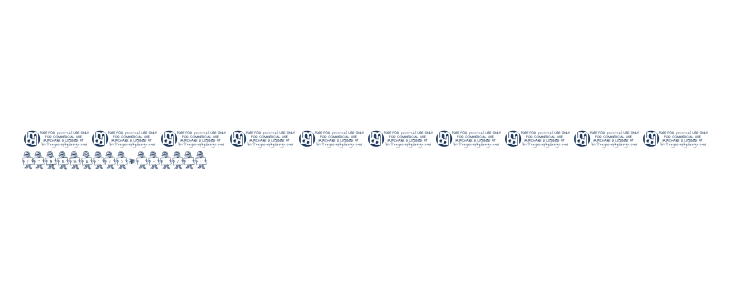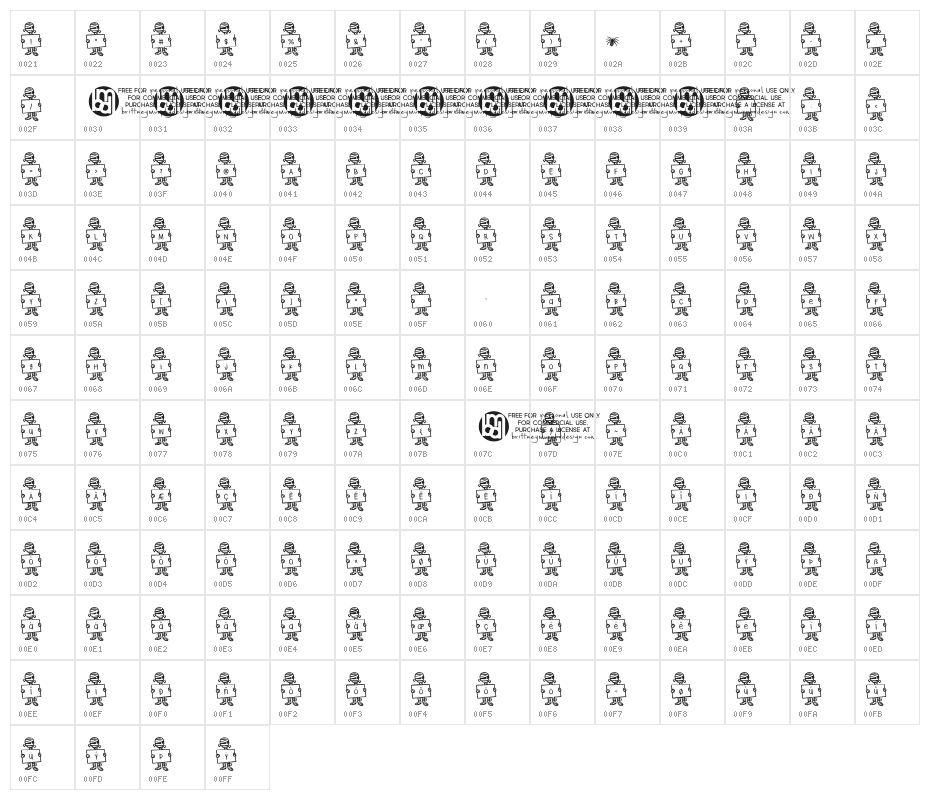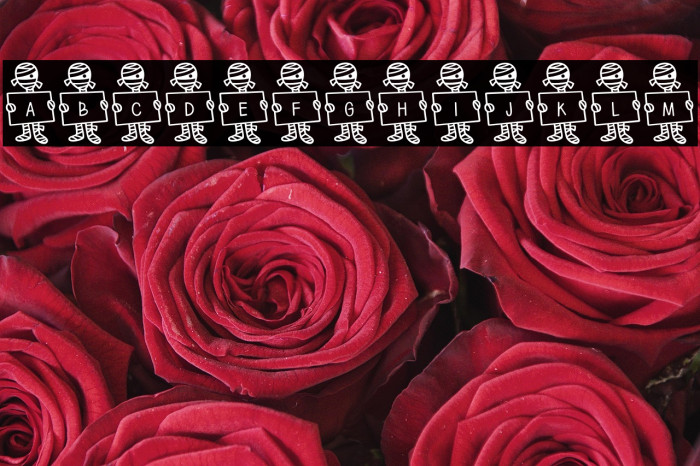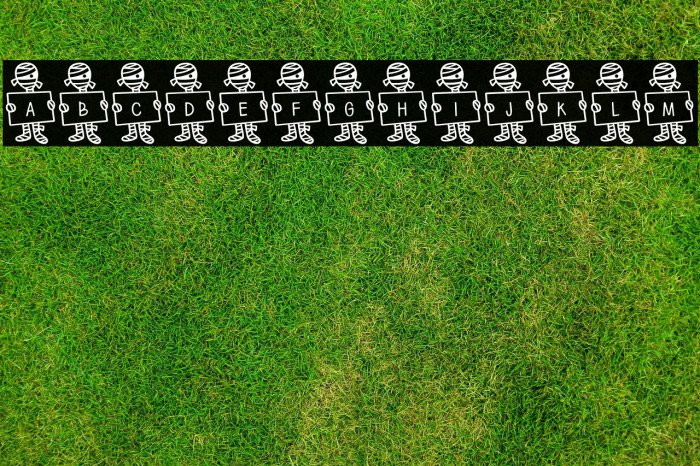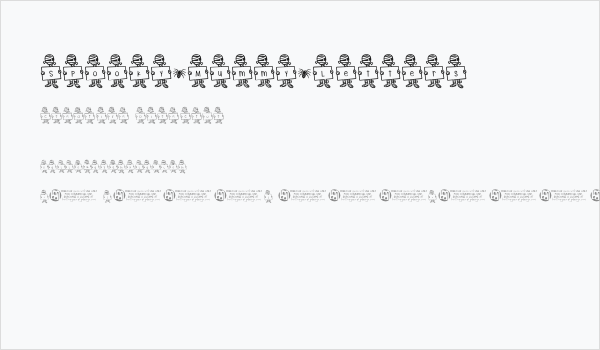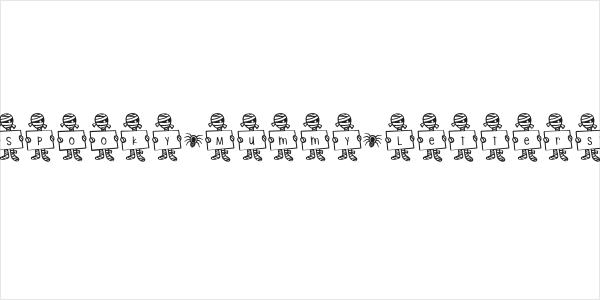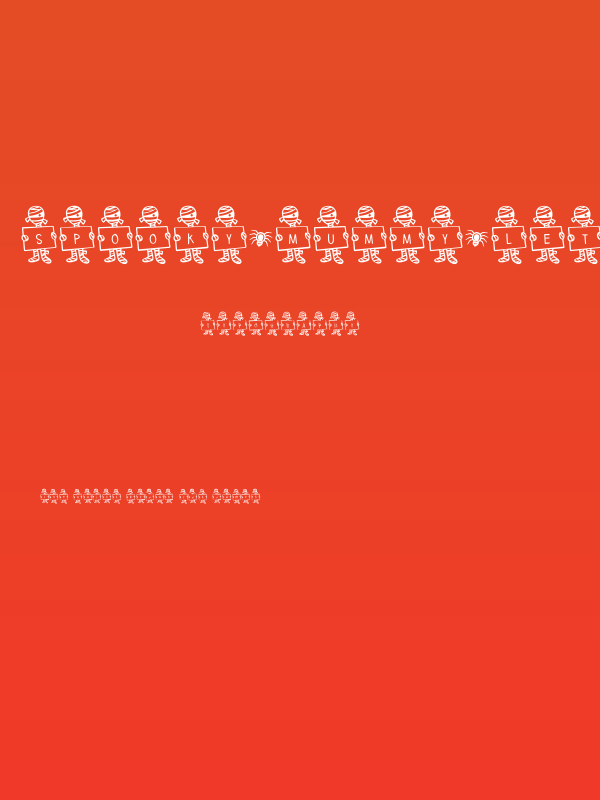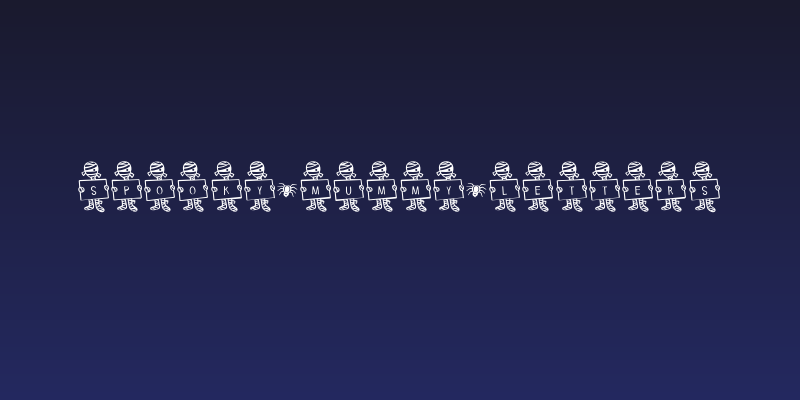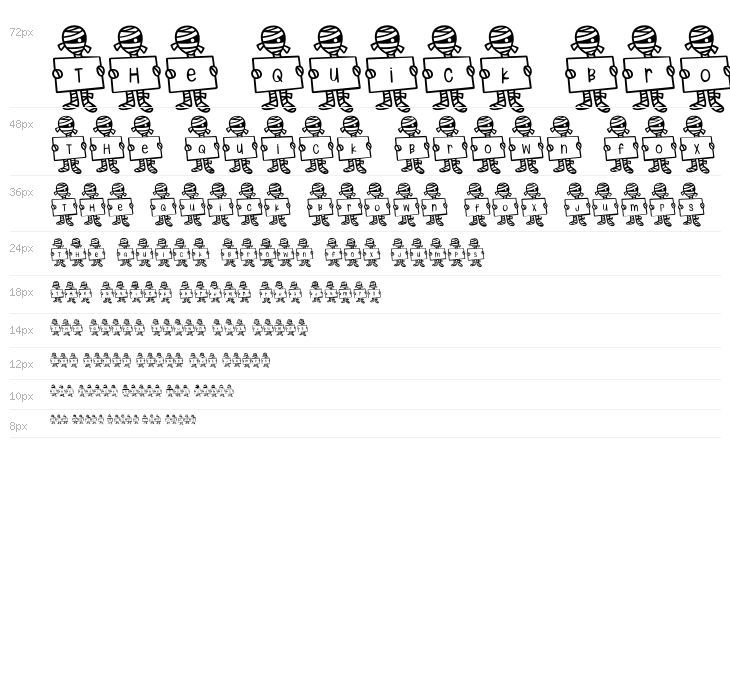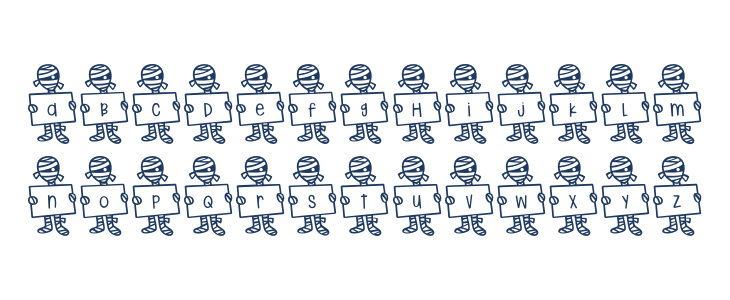
Spooky*Mummy*Letters Font
Spooky*Mummy*Letters Description
This playful and thematic font features characters depicted as mummies holding signs with letters and symbols. Each character is wrapped in bandages, adding a whimsical and spooky touch. The font is highly decorative, with a cartoonish style that makes it ideal for Halloween-themed projects. The letters are bold and clear, ensuring readability despite the intricate design. The font includes both uppercase and lowercase letters, numbers, and a selection of special characters, all maintaining the mummy motif. The consistent design across all characters provides a cohesive look, making it a fun choice for creative projects.
| Proposed Projects | Ideal for Halloween invitations, themed posters, children's party decorations, and spooky greeting cards. |